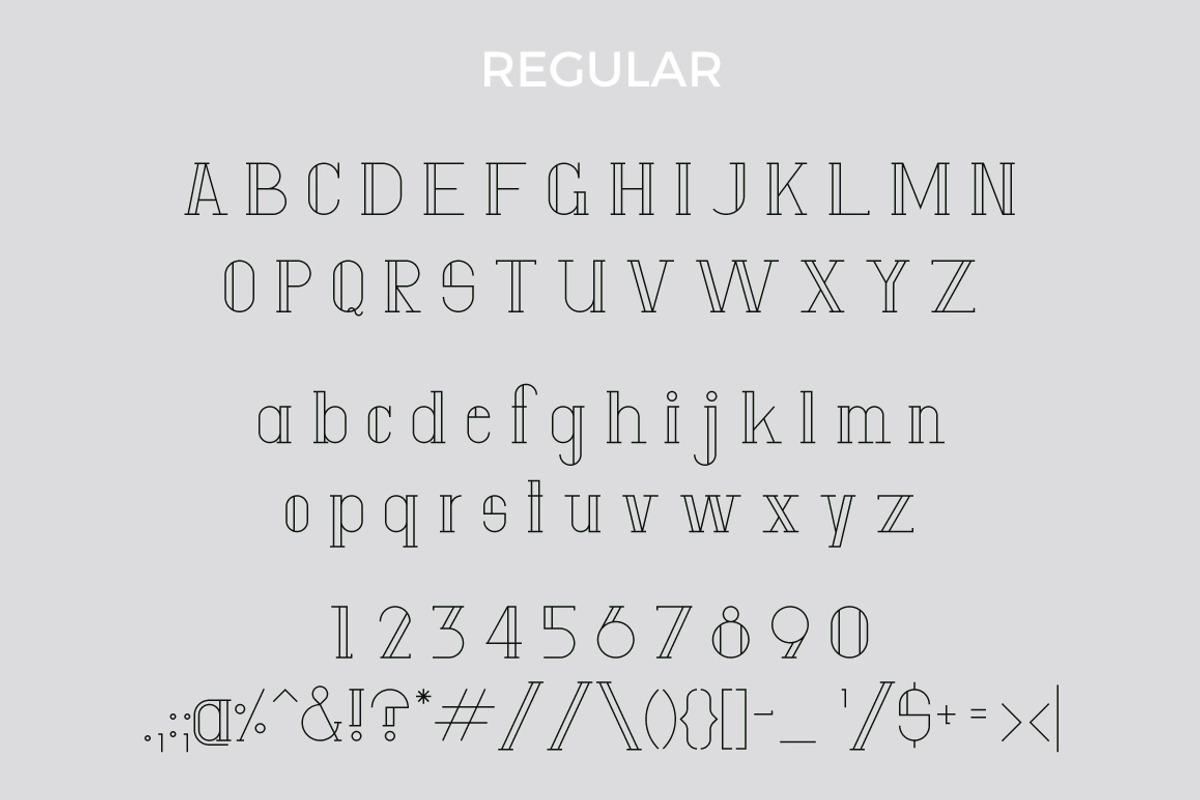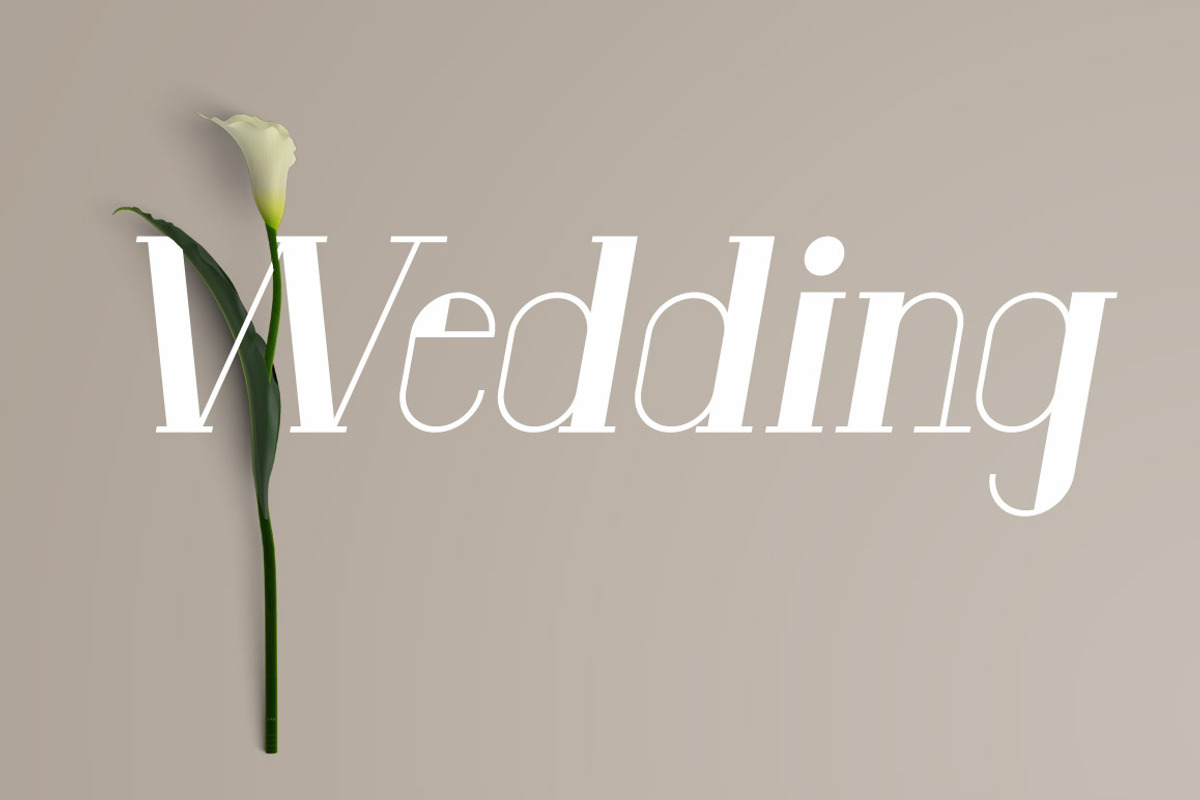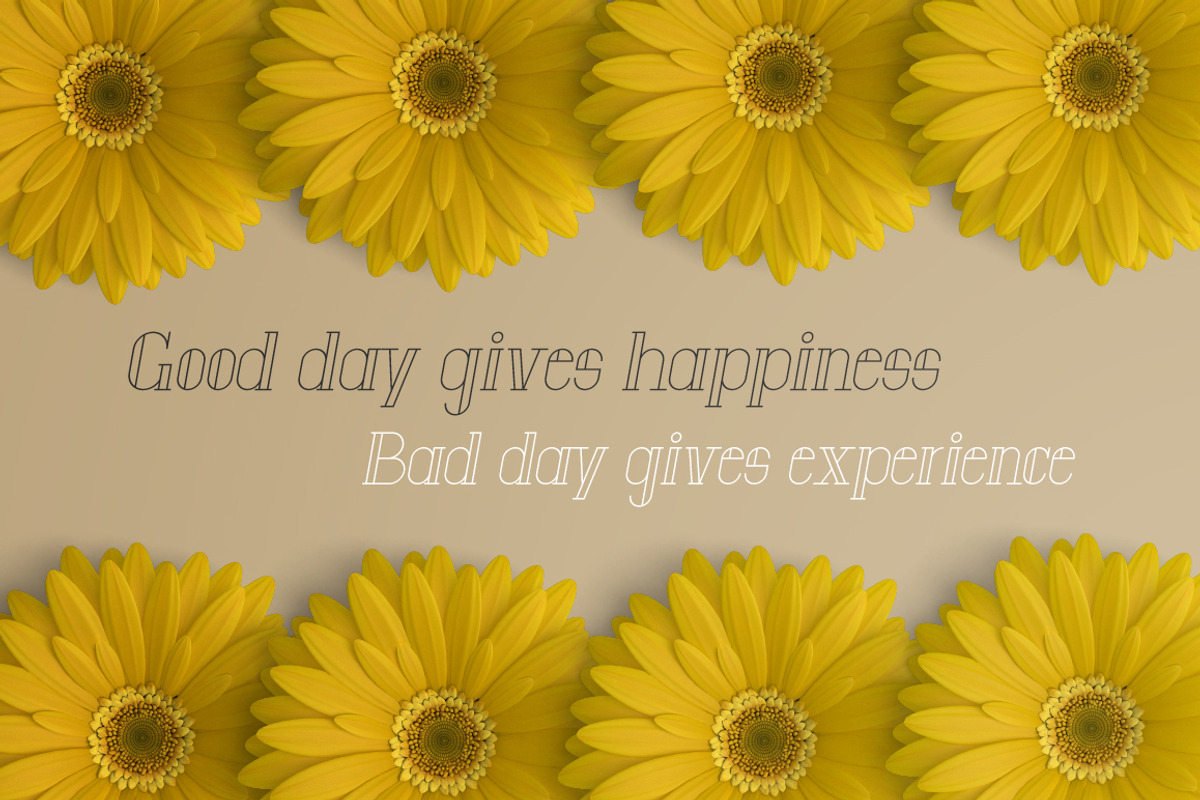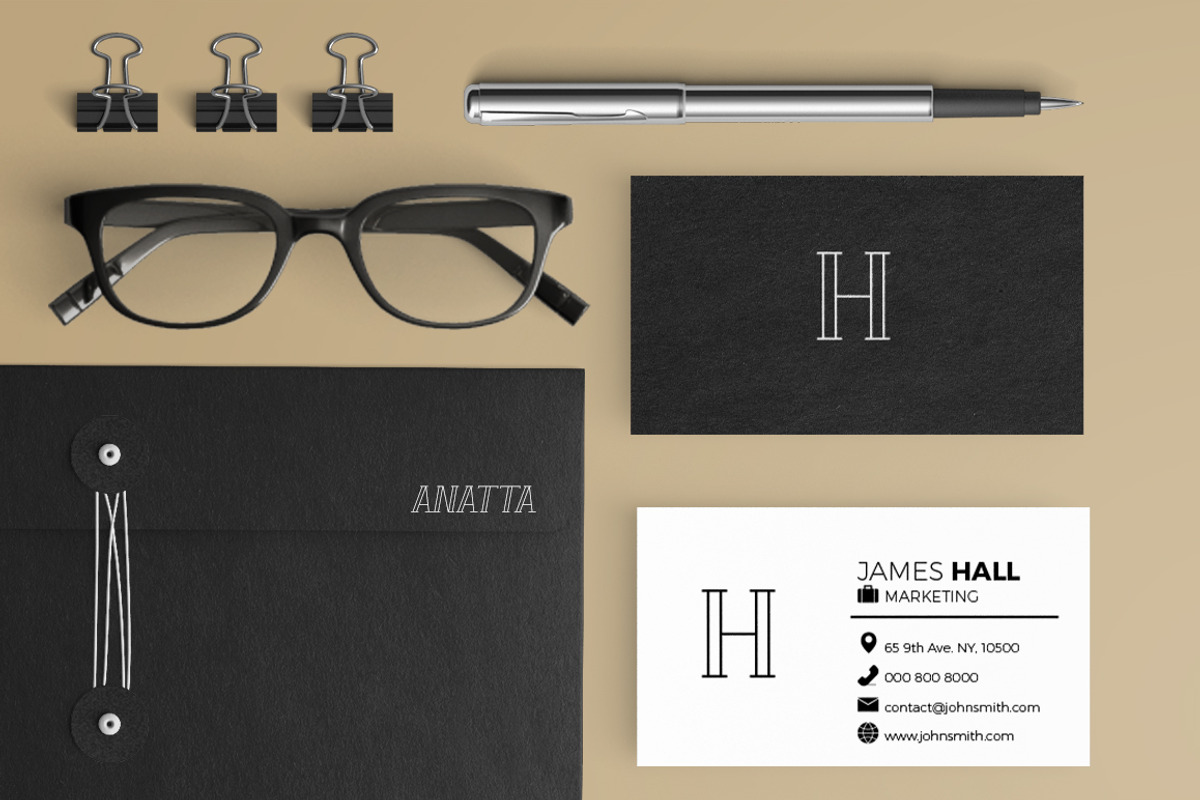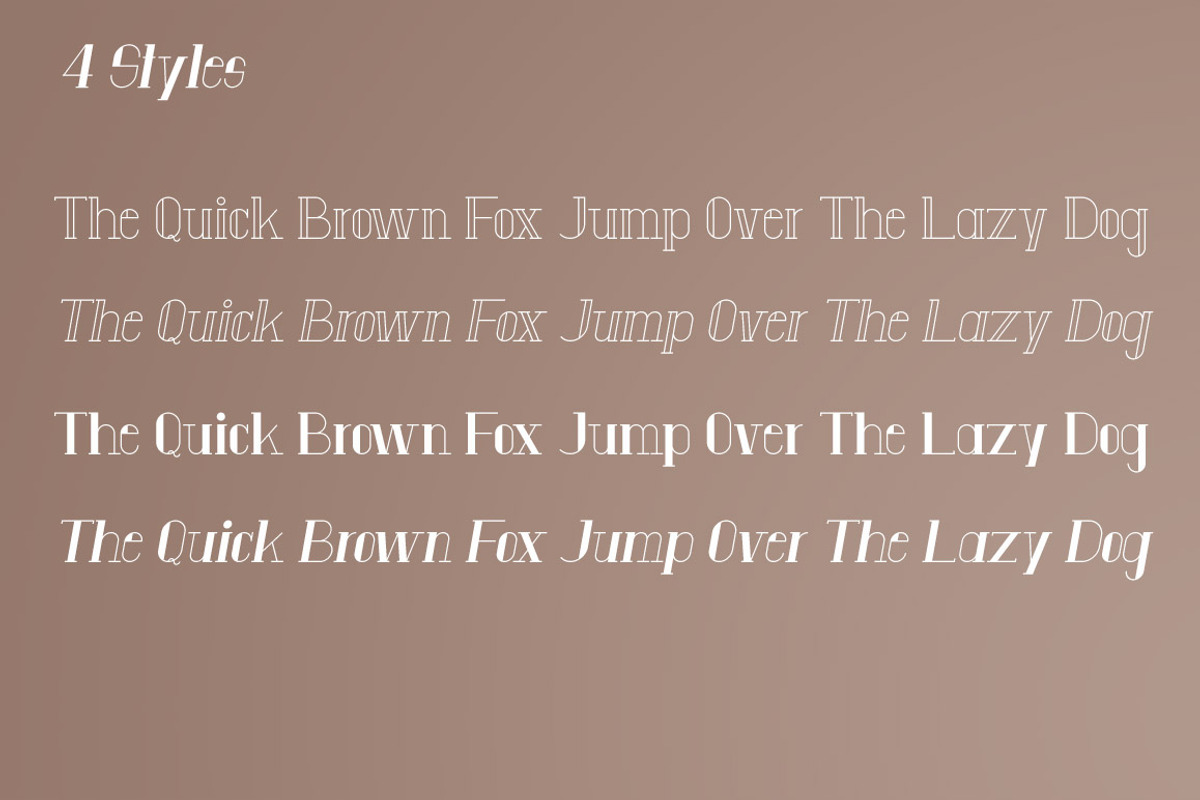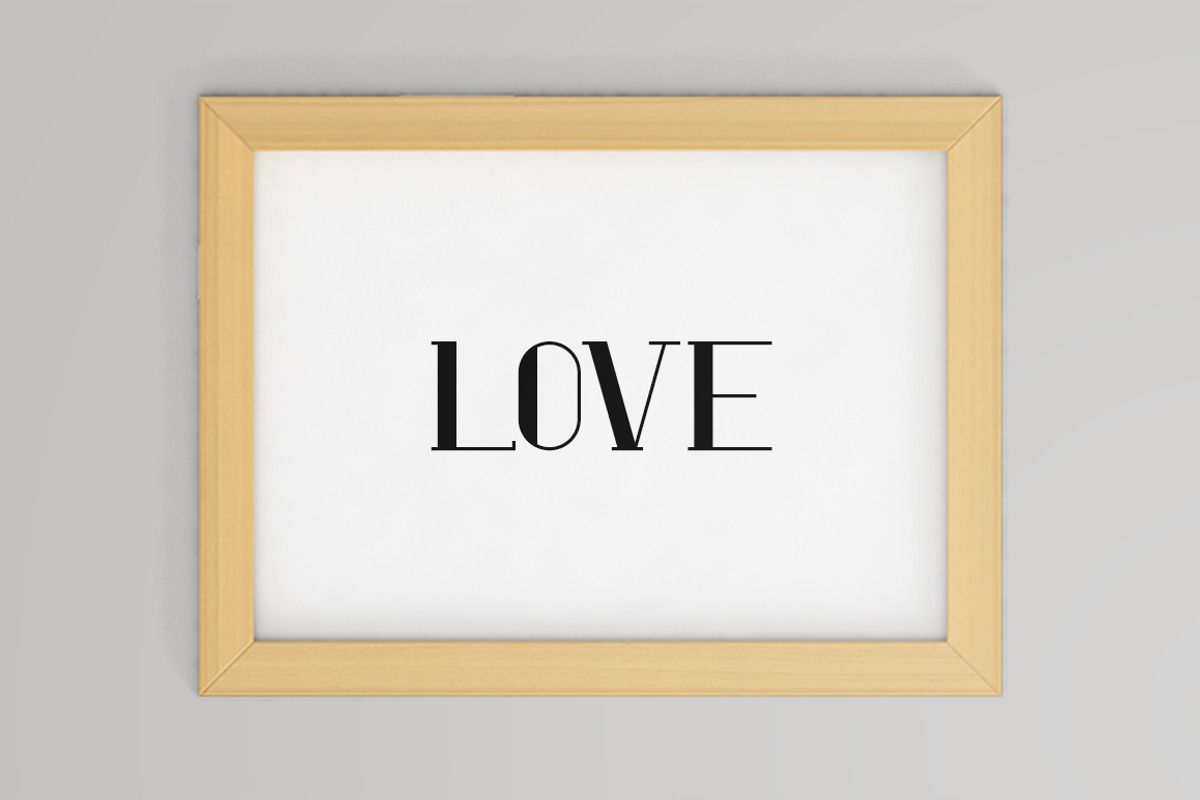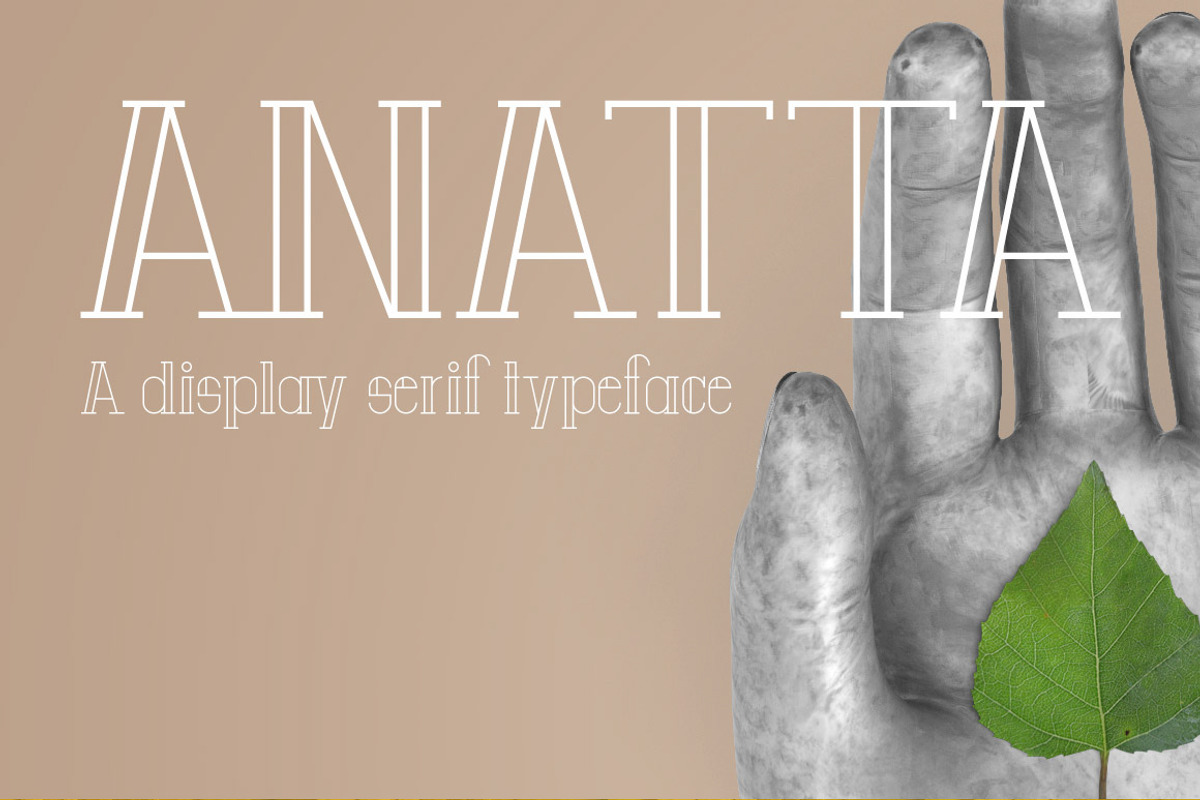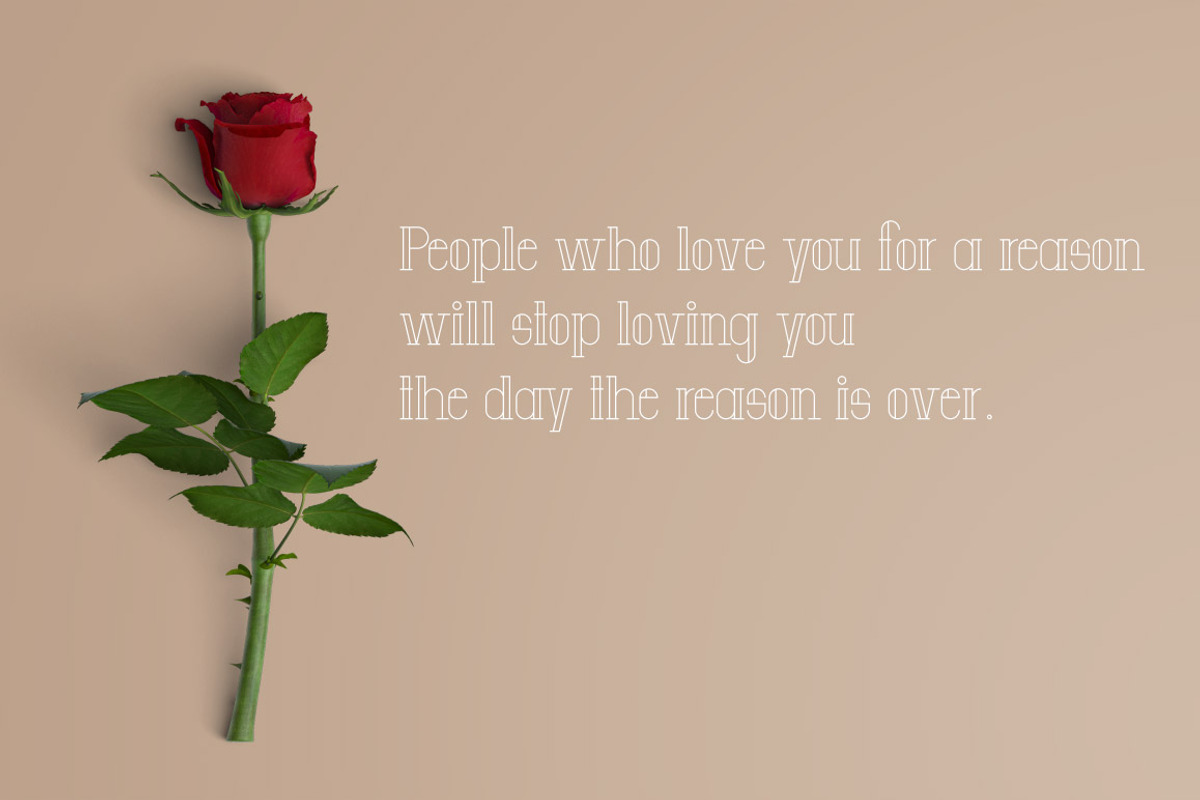
Anatta Display Serif Typeface
Anatta is a display serif typeface well designed with geometric precision. The name was inspired by buddhist philosophy refer to the doctrine of "non-self", that there is no unchanging, permanent self, soul or essence in living beings. This beautiful typeface is good for header and short phrase or whatever you like.
Anatta come in standard English characters(A-Z, a-z), numbers(0-9) and 30 Symbol&Punctuations. It includes 4 style, Regular, Italic, Filled Regular and Filled Italic